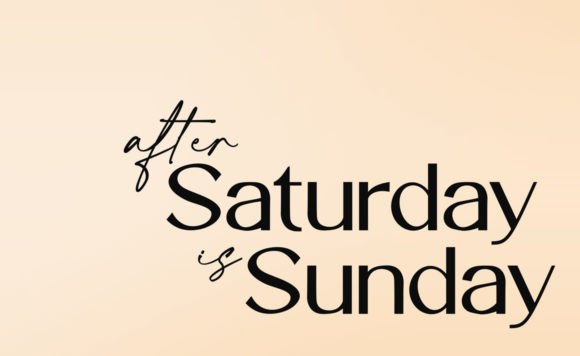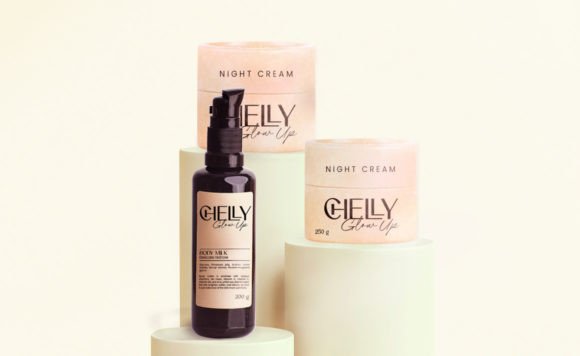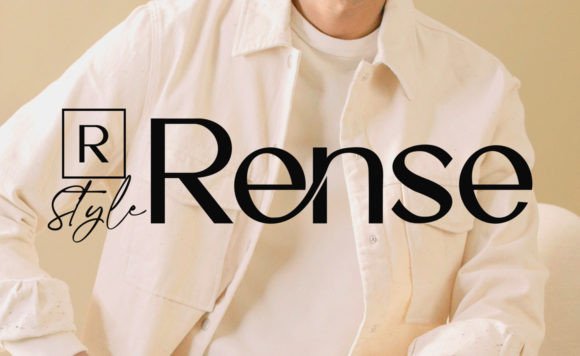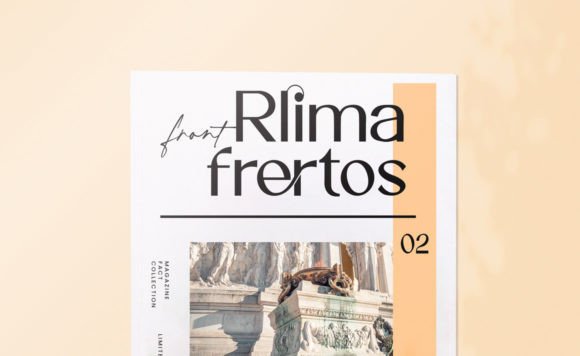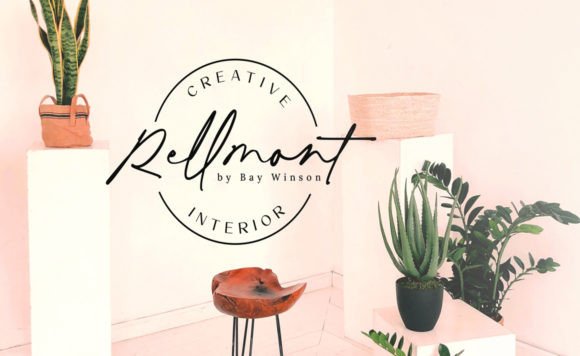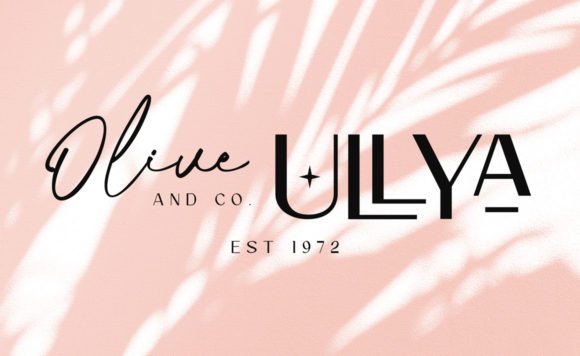
Glorien Duo Font: Elevate Your Designs with Elegance and Luxury
In the world of typography, finding the perfect font that adds a touch of elegance and luxury to your designs can be a daunting task. However, if you’re looking for a pair of stunning sans fonts and scripts that complement each other, look no further than the Glorien Duo Font. This exquisite font duo is designed to enhance any creation, making it a wonderful asset to your font library.
The Perfect Pair: Sans Fonts and Scripts
Glorien Duo Font is a carefully crafted pair of sans fonts and scripts that work in harmony to add a touch of sophistication to your designs. The sans font is clean and modern, while the script font is elegant and flowing, making them perfect for a wide range of design applications, from wedding invitations and branding to packaging and digital media.
Elegant and Luxurious Look
One of the standout features of the Glorien Duo Font is its elegant and luxurious look. The font’s design is characterized by clean lines, subtle curves, and a sophisticated feel that exudes high-end quality. Whether you’re creating a luxury brand identity or a wedding invitation, this font duo is sure to make a lasting impression.
Glorien Duo Font is PUA (Private Use Area) encoded, which means you can access all glyphs and swashes with ease. This feature makes it easy to customize your designs and add unique touches to your typography. With PUA encoding, you can access a wide range of alternative characters, ligatures, and swashes, giving you complete creative control over your designs.
The versatility of the Glorien Duo Font is one of its most appealing features. Whether you’re a designer, crafty DIY enthusiast, or simply someone who loves to create, this font duo offers endless design possibilities. Here are just a few ideas to get you started:
- Luxury brand identities and packaging
- Digital media, such as social media graphics and blog headers
- Paper crafts and DIY projects
Why Choose Glorien Duo Font?
So, why choose the Glorien Duo Font over other font options? Here are just a few reasons why this font duo stands out:
- Elegant and luxurious look: The Glorien Duo Font is designed to add a touch of sophistication and elegance to your designs.
- Versatile: This font duo can be used for a wide range of design applications, from wedding invitations to luxury brand identities.
- PUA encoded: With PUA encoding, you can access all glyphs and swashes with ease, giving you complete creative control over your designs.
- High-quality design: The Glorien Duo Font is designed to high standards, ensuring that your designs look professional and polished.
In conclusion, the Glorien Duo Font is a stunning pair of sans fonts and scripts that complement each other perfectly. With its elegant and luxurious look, versatility, and PUA encoding, this font duo is a must-have for designers, crafty DIY enthusiasts, and anyone who loves to create. Whether you’re looking to elevate your designs or simply want to add a touch of sophistication to your typography, the Glorien Duo Font is an excellent choice.